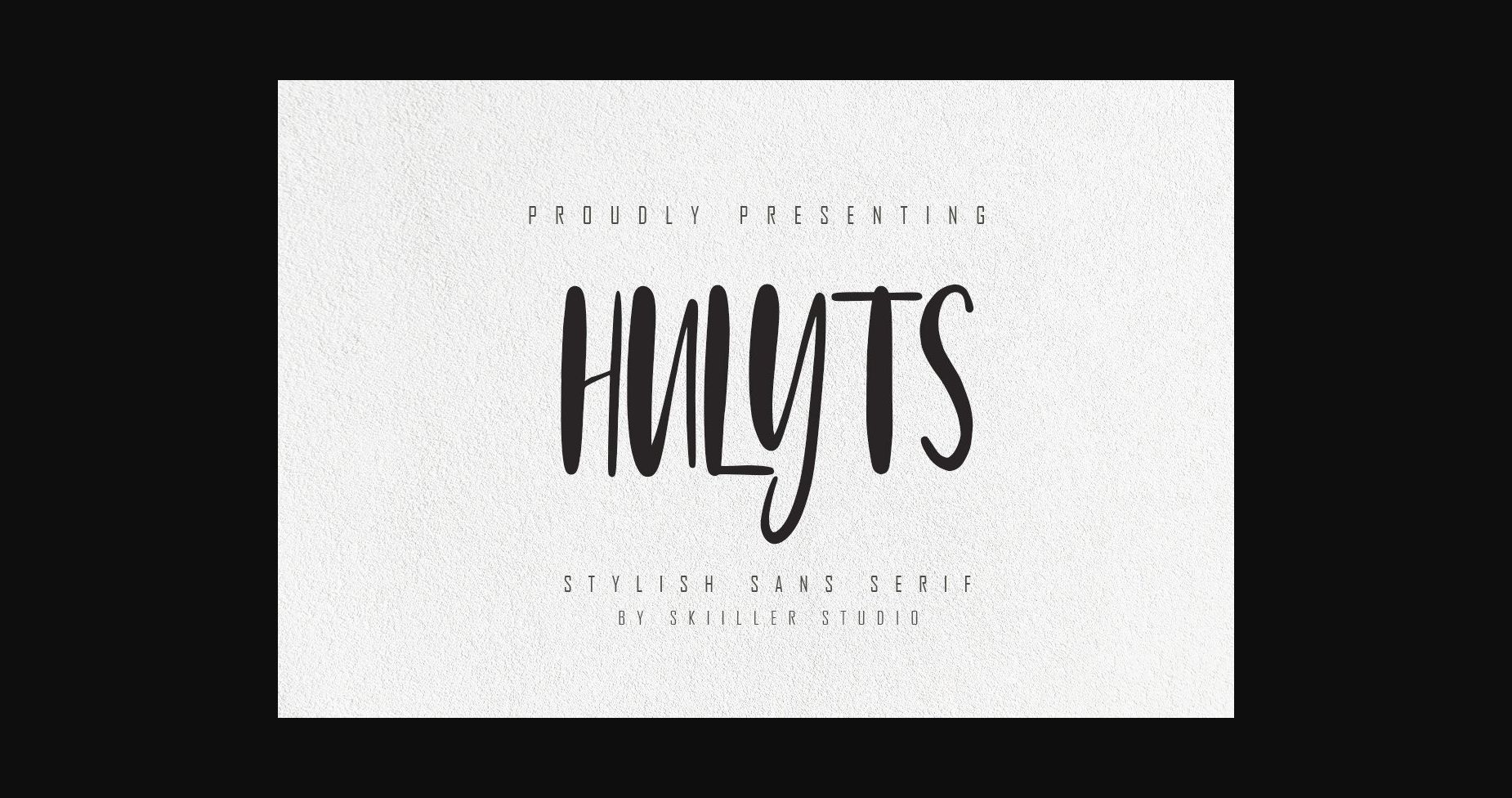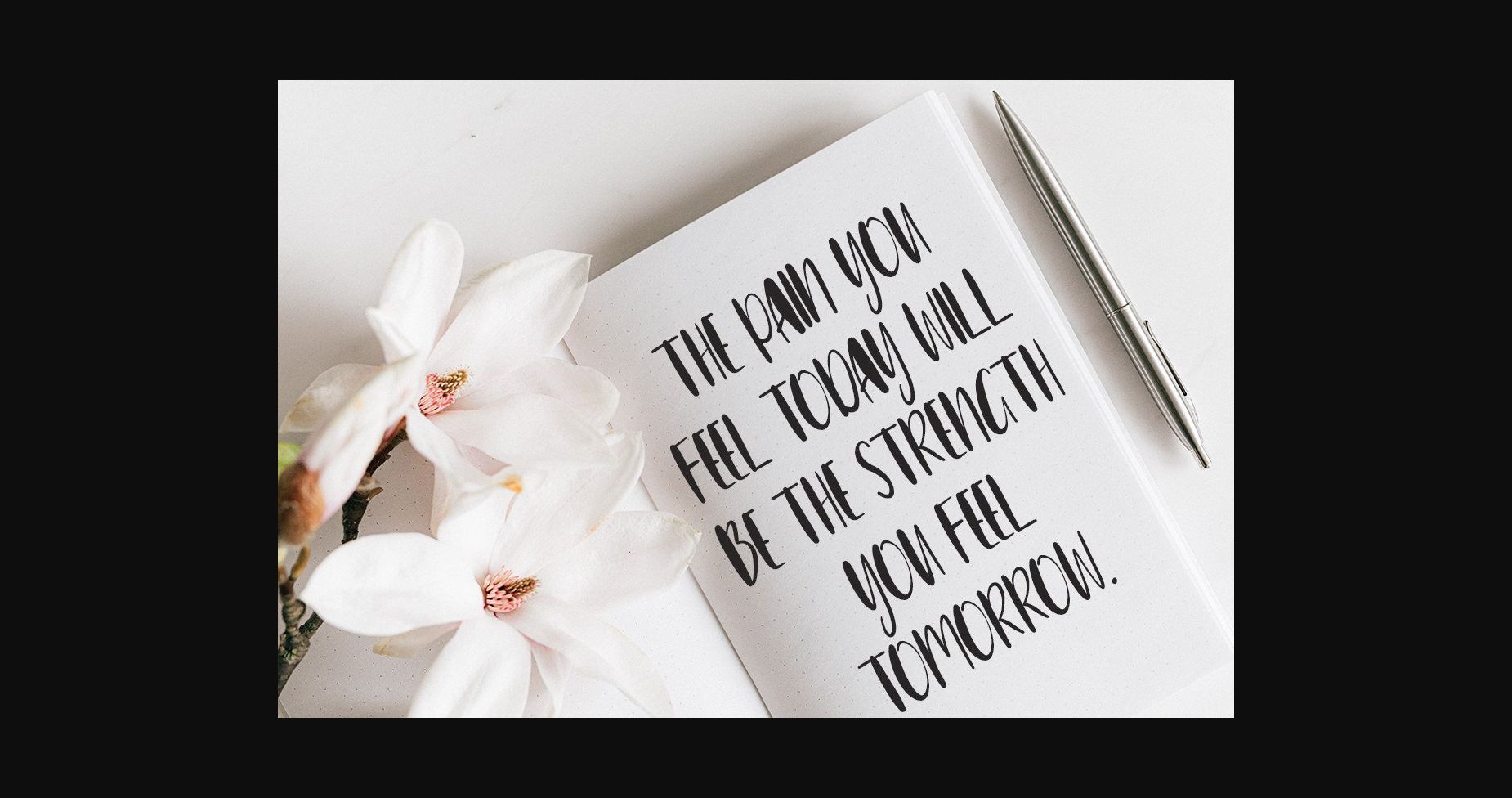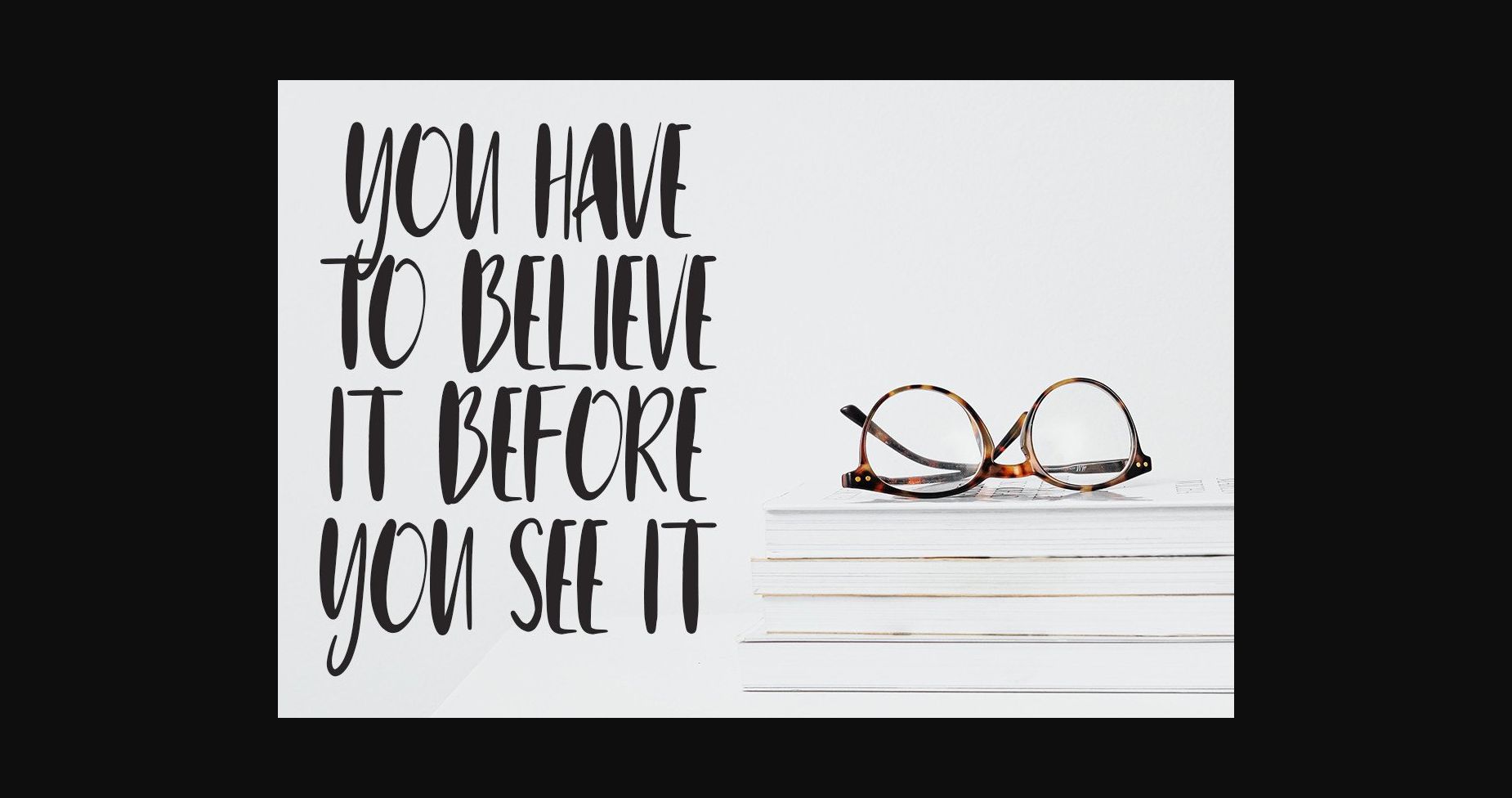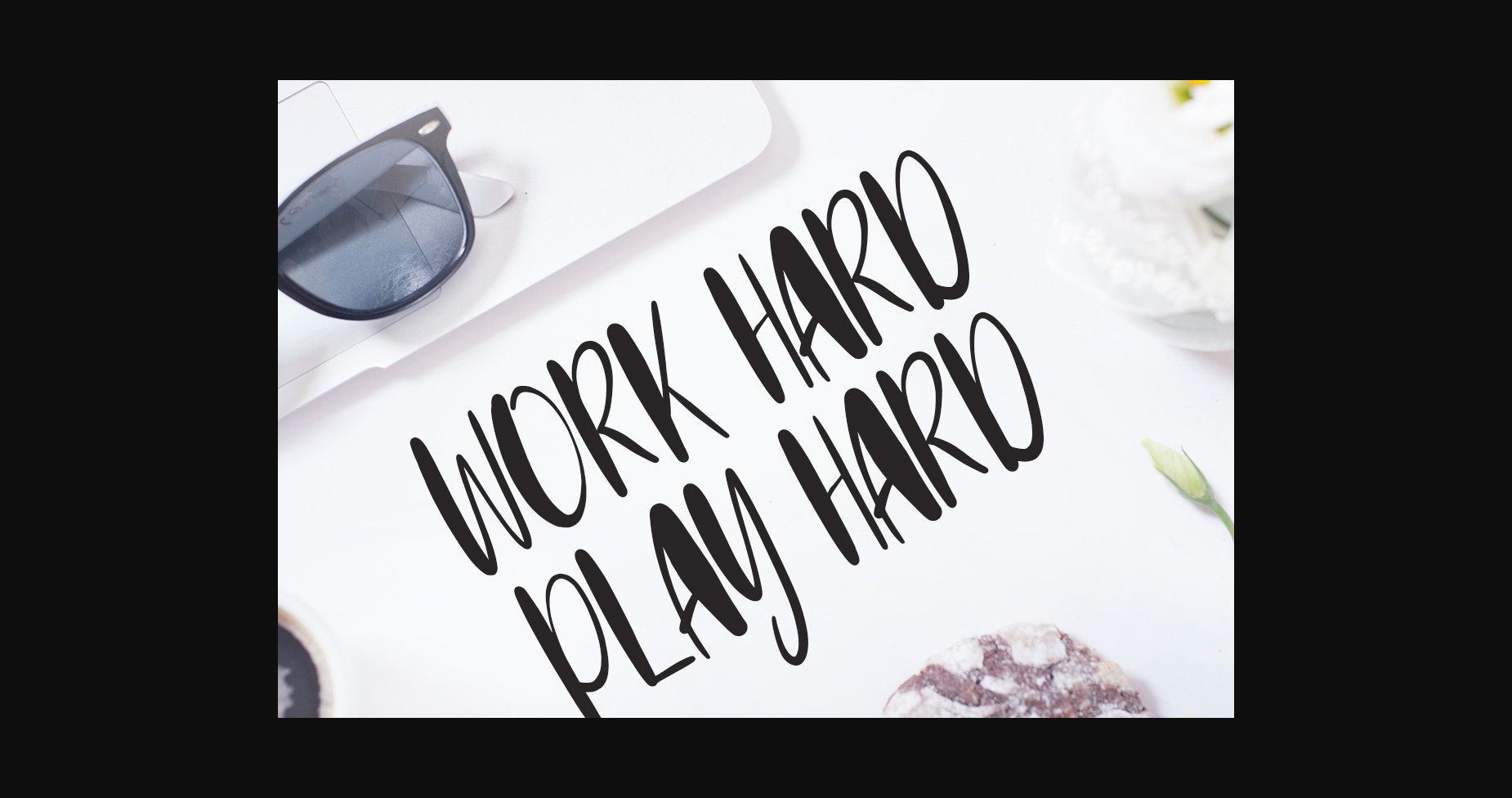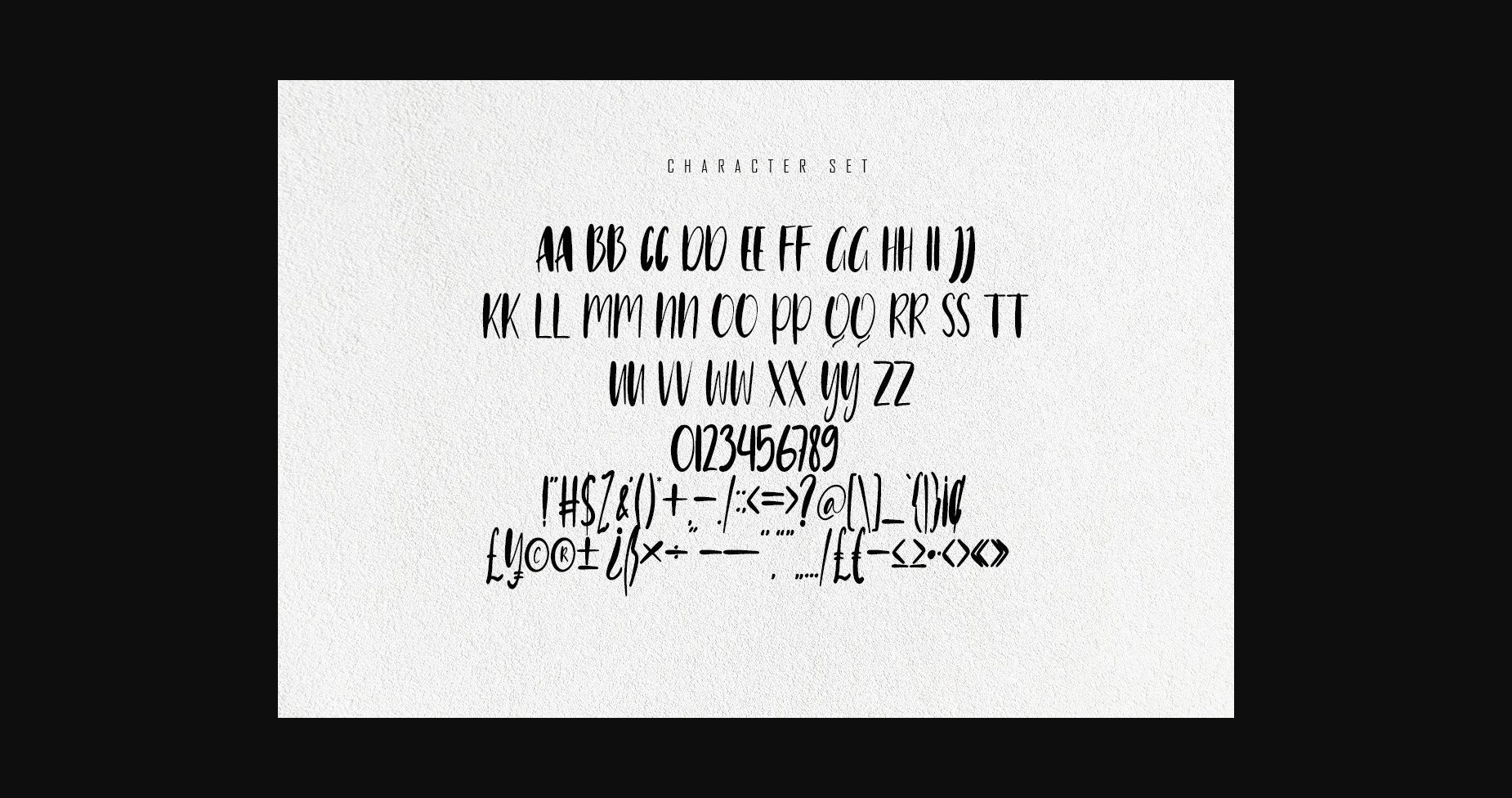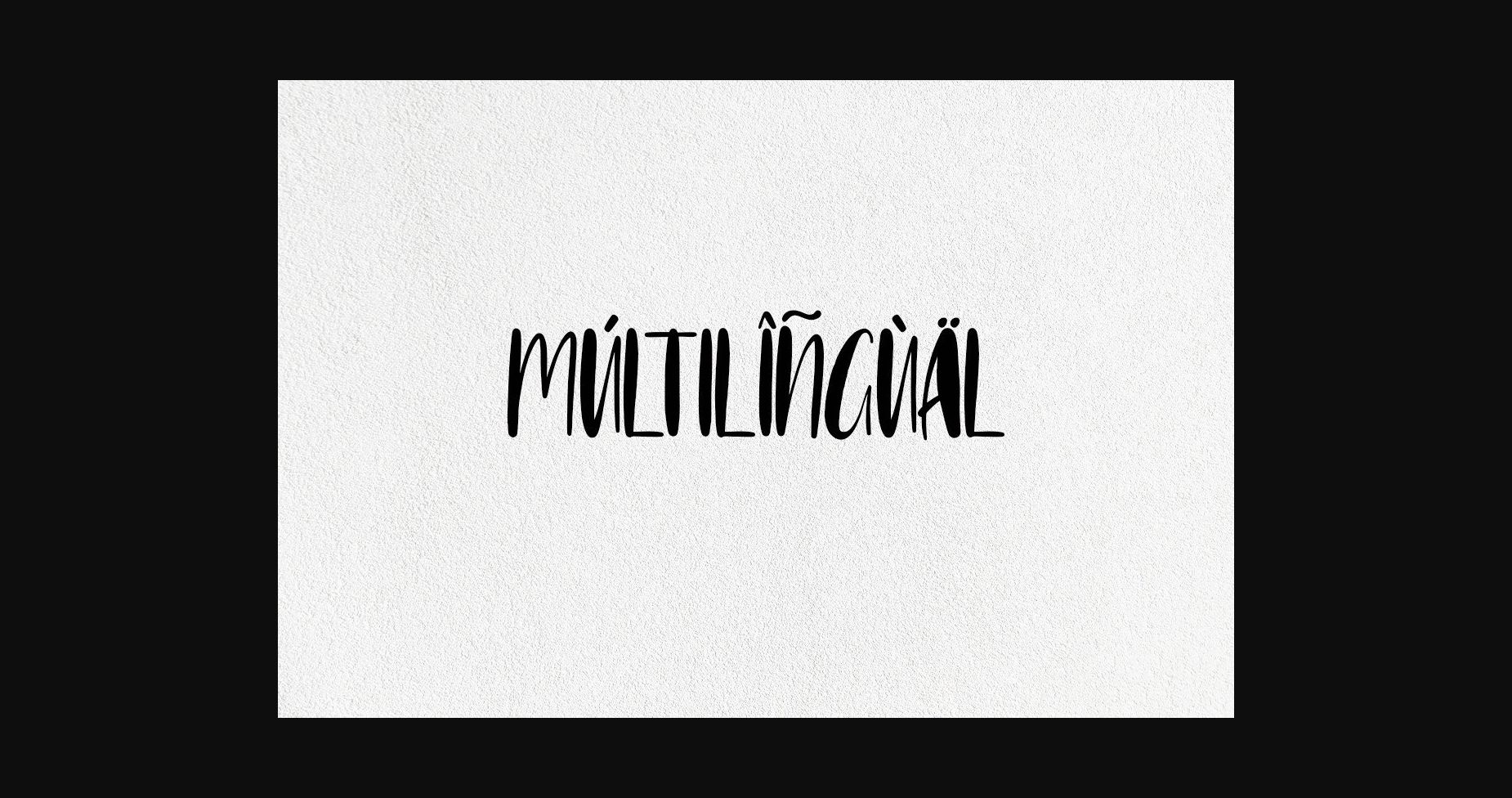
Hulyts Font
About Hulyts Font
Hulyts is a cool and techno looking and bold display font. This font is ideal for writing web designs, business cards, or pretty much anything else that requires a unique touch.